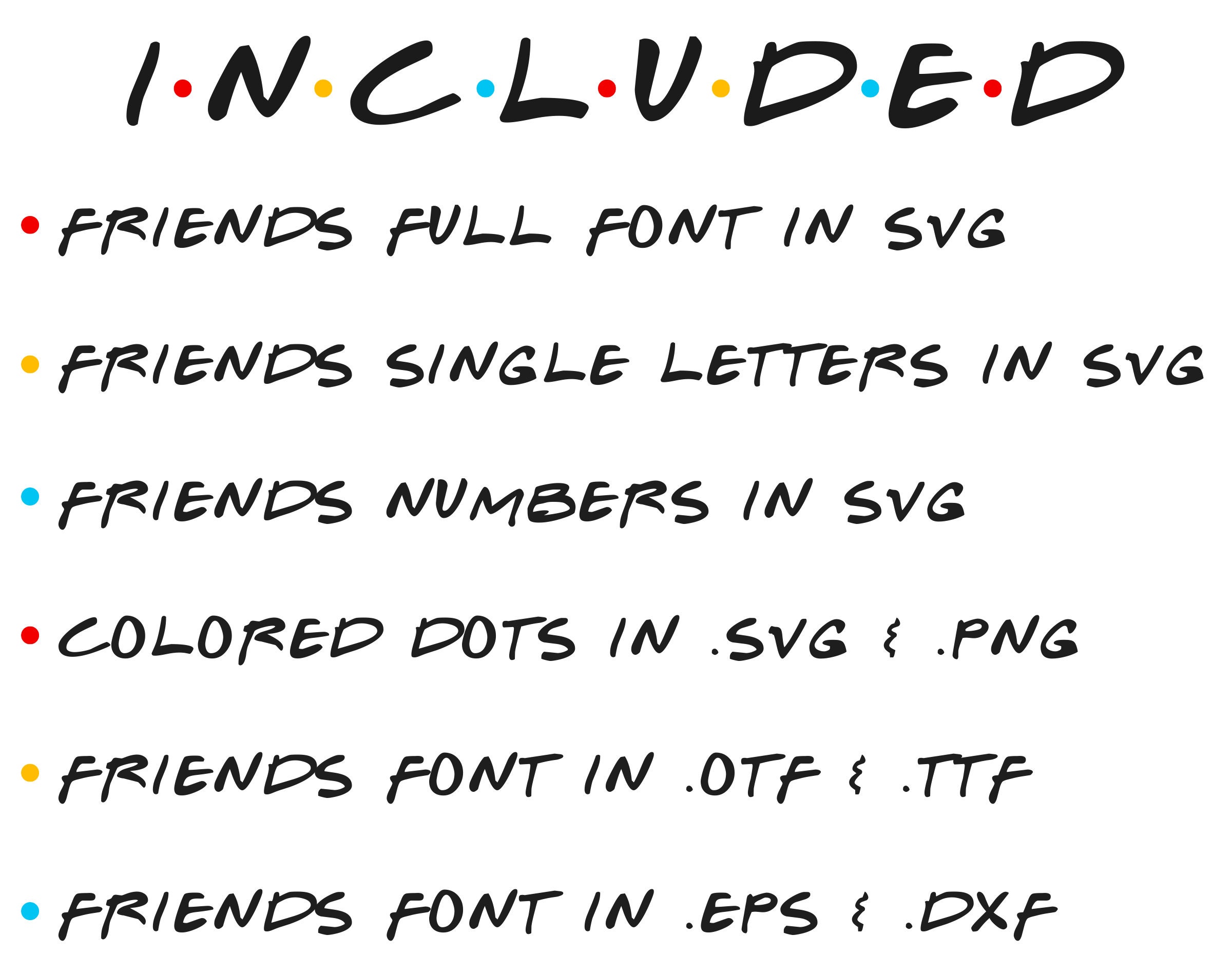
Friends tv show just celebrated its 25th anniversary. Web friends font generator & download is available free at fontbolt. Web the closest free fonts we can find for the tv title lettering are gabriel weiss’ friends and minus cre by fred cre.
2,066,753 downloads (410 yesterday) 71 comments. Web the closest free fonts we can find for the tv title lettering are gabriel weiss’ friends and minus cre by fred cre. Both gabriel weiss’ friends font and the original “friends” logo have become synonymous with the iconic sitcom’s cheerful and quirky aesthetic. 2,066,753 downloads (410 yesterday) 71 comments.
Friends Font Free With Dots - The dvd box cover above additionally. Try our text generator and create cool graphics for friends font, then you can save the font image to your pc, mac, linux, ios and android device. Friends tv show just celebrated its 25th anniversary. Friends is an american tv series created by david crane. 2,066,753 downloads (410 yesterday) 71 comments.
Friends Font Free With Dots - The dvd box cover above additionally uses berliner. Web the closest free fonts we can find for the tv title lettering are gabriel weiss’ friends and minus cre by fred cre. We can help you convert any text into beautiful fonts with eye catching styles with our friends font generator. Friends tv show just celebrated its 25th anniversary. Web friends.
Friends Font Free With Dots - Both gabriel weiss’ friends font and the original “friends” logo have become synonymous with the iconic sitcom’s cheerful and quirky aesthetic. Web the first font is “gabriel weiss’ friends” and was designed by gabriel weiss. Friends is an american tv series created by david crane. Gabriel weiss' friends à by gabriel weiss. Web friends font generator & download is available.
Friends Font Free With Dots - The dvd box cover above additionally uses berliner. Web the closest free fonts we can find for the tv title lettering are gabriel weiss’ friends and minus cre by fred cre. The dvd box cover above additionally. 2,066,753 downloads (410 yesterday) 71 comments. Try our text generator and create cool graphics for friends font, then you can save the font.
Friends Font Free With Dots - The dvd box cover above additionally. You can use this font in your personal. Web the closest free fonts we can find for the tv title lettering are gabriel weiss’ friends and minus cre by fred cre. 2,066,753 downloads (410 yesterday) 71 comments. Try our text generator and create cool graphics for friends font, then you can save the font.
Friends Font Free With Dots - The dvd box cover above additionally. Friends is an american tv series created by david crane. You can use this font in your personal. Gabriel weiss' friends à by gabriel weiss. The dvd box cover above additionally uses berliner.
Friends Font Free With Dots - Try our text generator and create cool graphics for friends font, then you can save the font image to your pc, mac, linux, ios and android device. Friends is an american tv series created by david crane. Web the first font is “gabriel weiss’ friends” and was designed by gabriel weiss. Web the closest free fonts we can find for.
Friends Font Free With Dots - Web the closest free fonts we can find for the tv title lettering are gabriel weiss’ friends and minus cre by fred cre. Friends is an american tv series created by david crane. We can help you convert any text into beautiful fonts with eye catching styles with our friends font generator. Try our text generator and create cool graphics.
Friends Font Free With Dots - Friends tv show just celebrated its 25th anniversary. You can use this font in your personal. The dvd box cover above additionally. The dvd box cover above additionally uses berliner. Web the closest free fonts we can find for the tv title lettering are gabriel weiss’ friends and minus cre by fred cre.
Friends Font Free With Dots - Web the closest free fonts we can find for the tv title lettering are gabriel weiss’ friends and minus cre by fred cre. Web the first font is “gabriel weiss’ friends” and was designed by gabriel weiss. Friends is an american tv series created by david crane. 2,066,753 downloads (410 yesterday) 71 comments. Gabriel weiss' friends à by gabriel weiss.
Friends Font Free With Dots - Try our text generator and create cool graphics for friends font, then you can save the font image to your pc, mac, linux, ios and android device. Web friends font generator & download is available free at fontbolt. You can use this font in your personal. The dvd box cover above additionally. Friends is an american tv series created by.
Friends Font Free With Dots - Web the closest free fonts we can find for the tv title lettering are gabriel weiss’ friends and minus cre by fred cre. Friends tv show just celebrated its 25th anniversary. 2,066,753 downloads (410 yesterday) 71 comments. The dvd box cover above additionally uses berliner. Friends is an american tv series created by david crane.